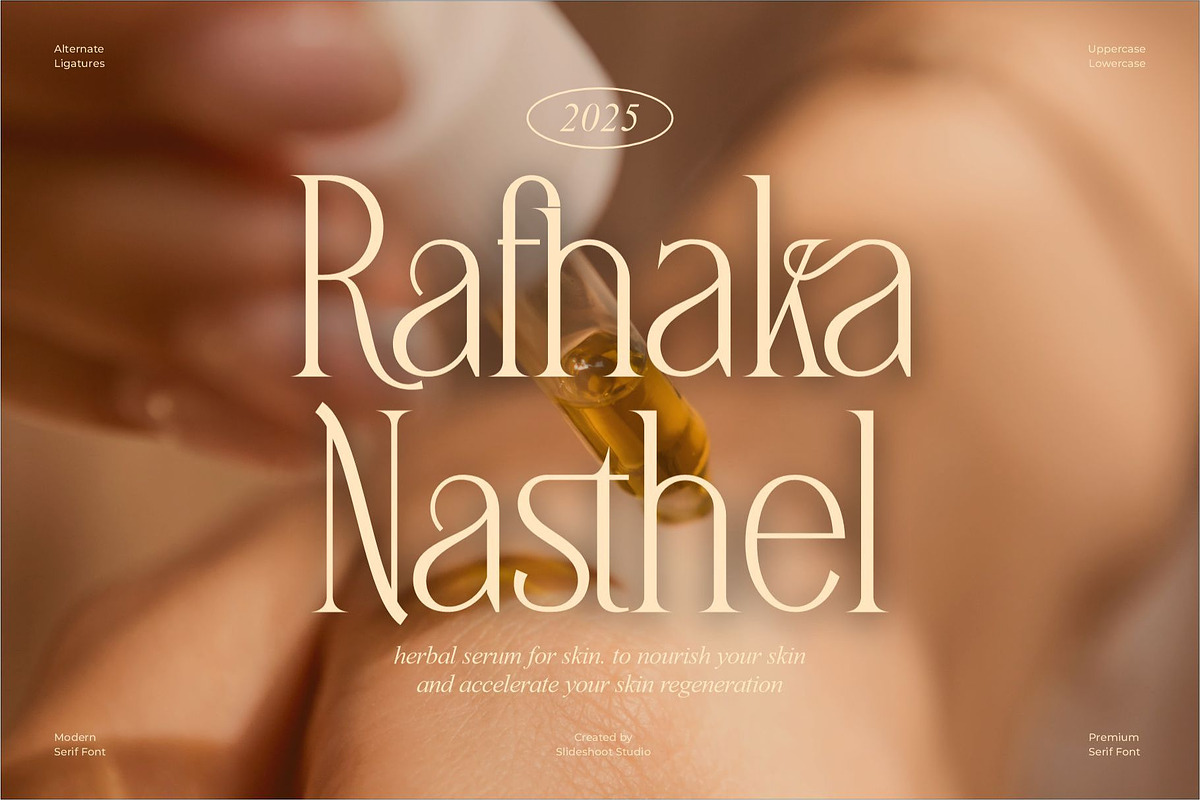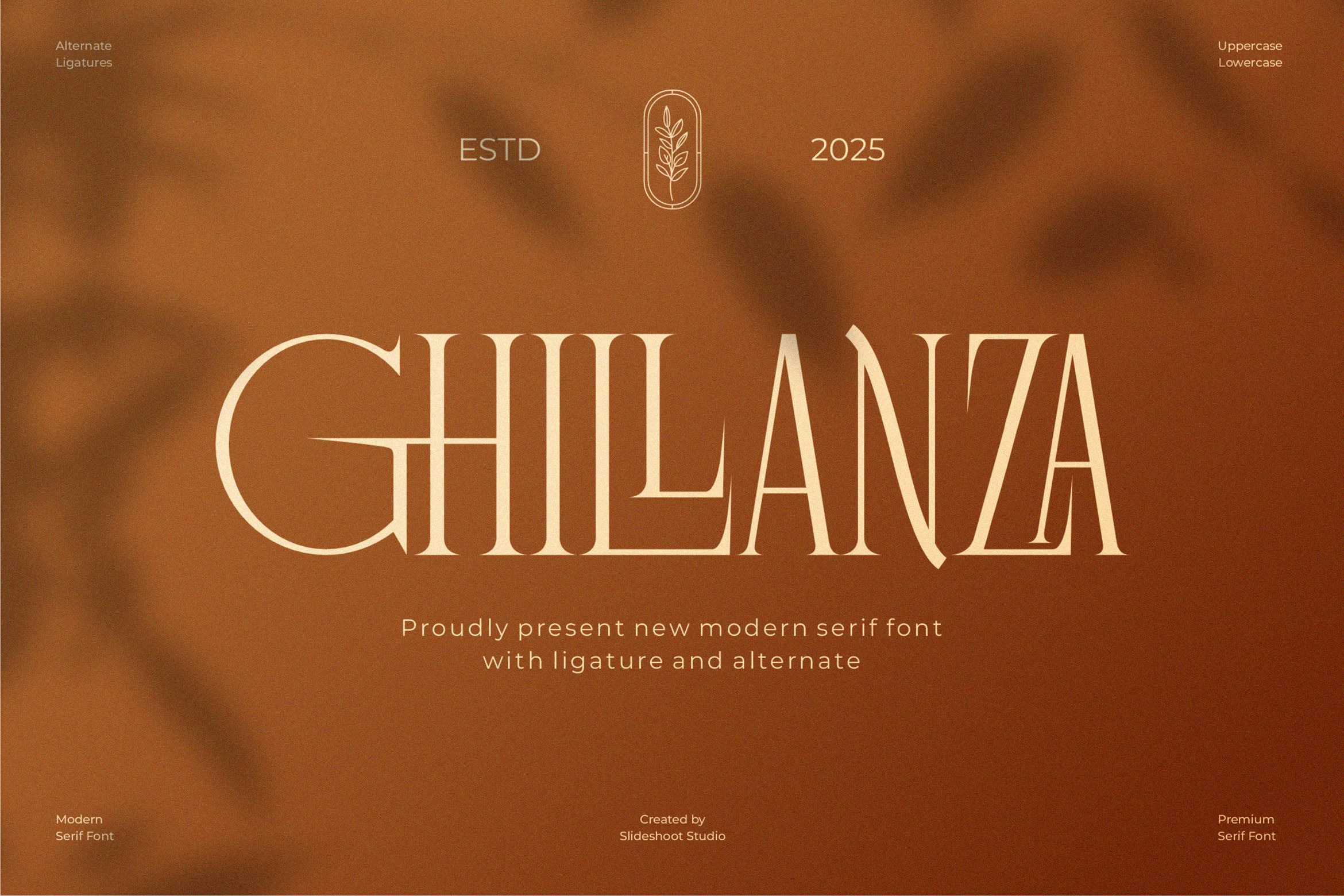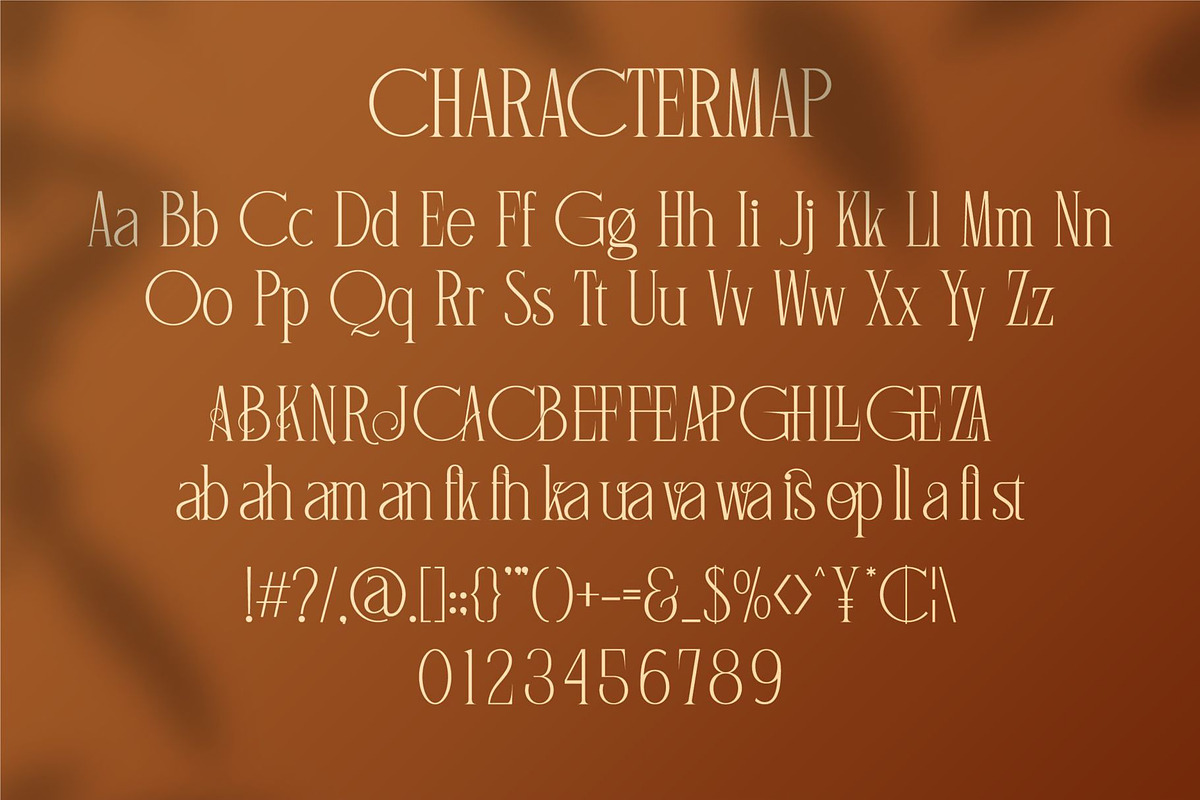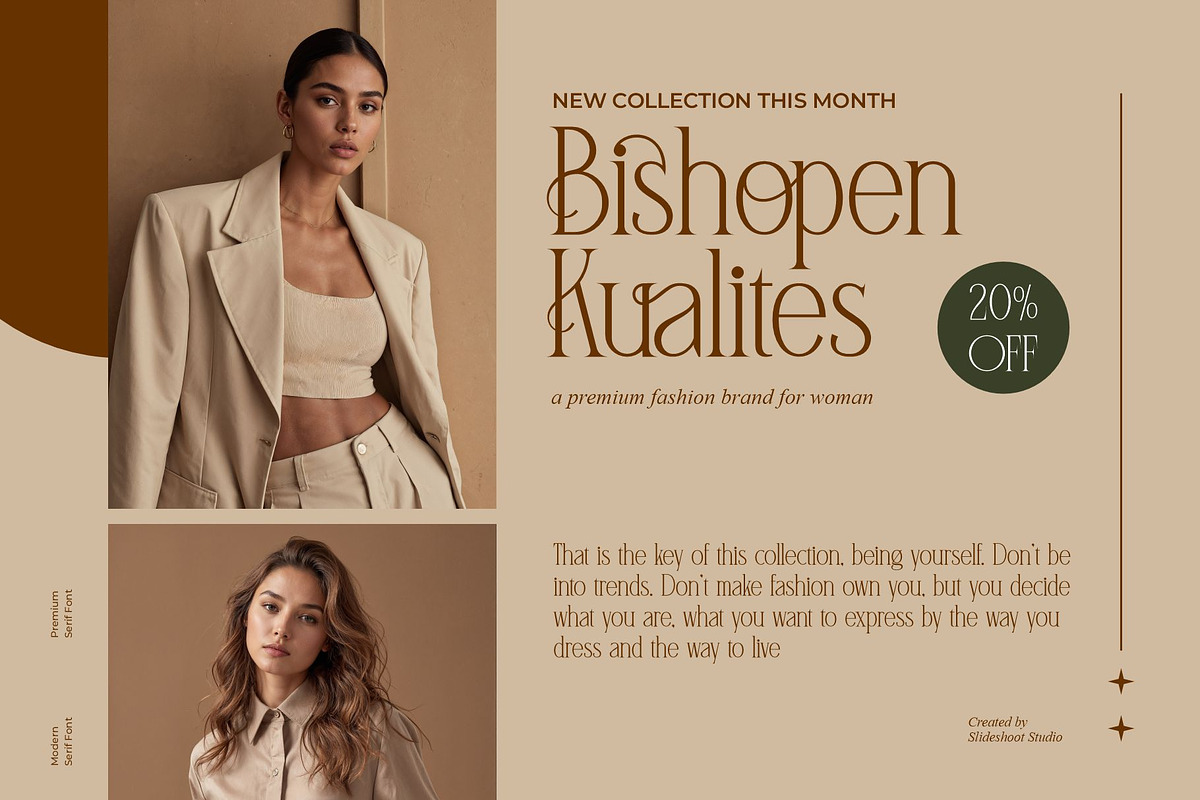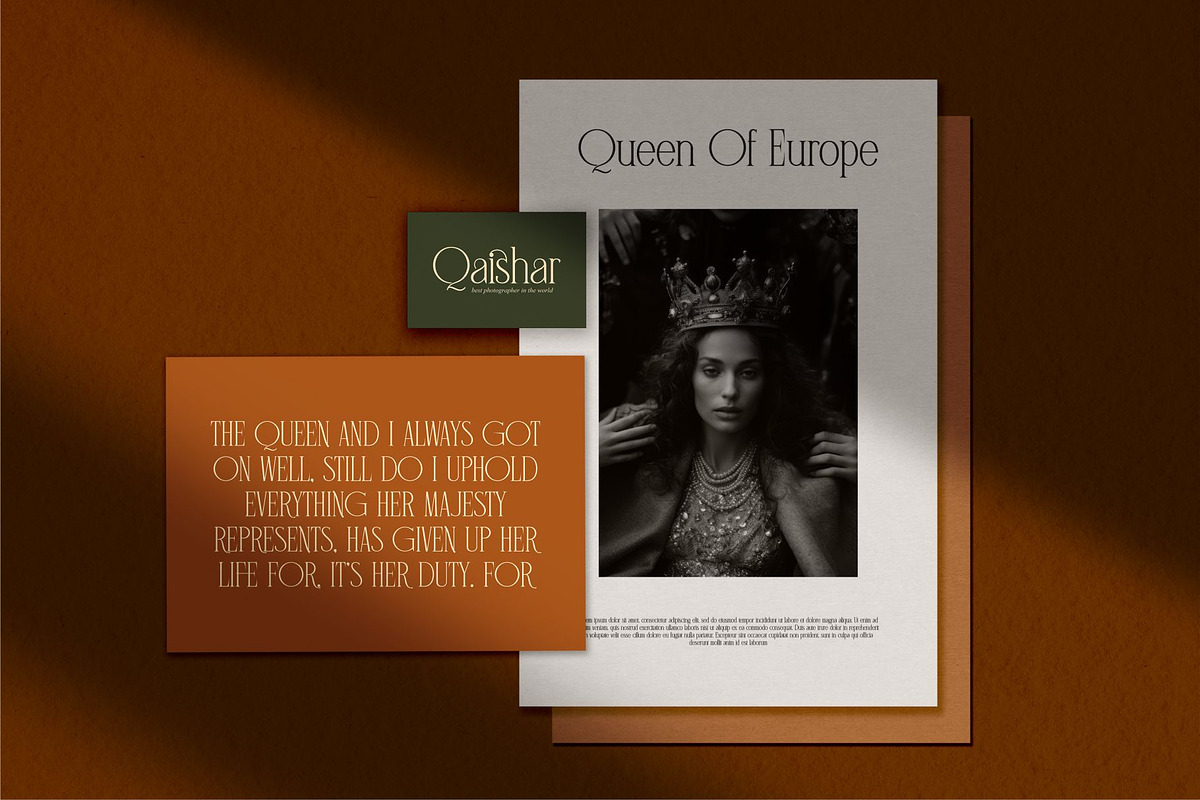
Ghillanza || Modern Serif Font
Introducing Ghillanza is a serif font with modern theme. It is perfect to be combined with invitation card designs, company logos, movie titles, movie names, business cards, book titles, brand names and various other designs.